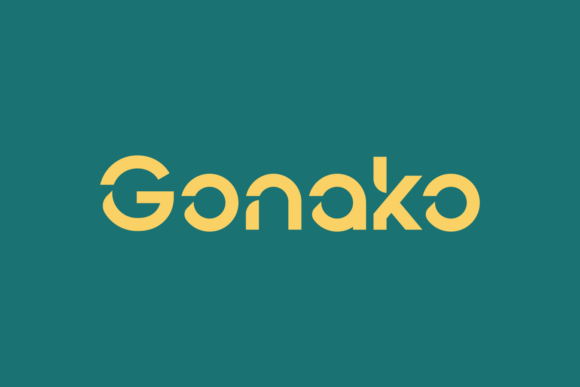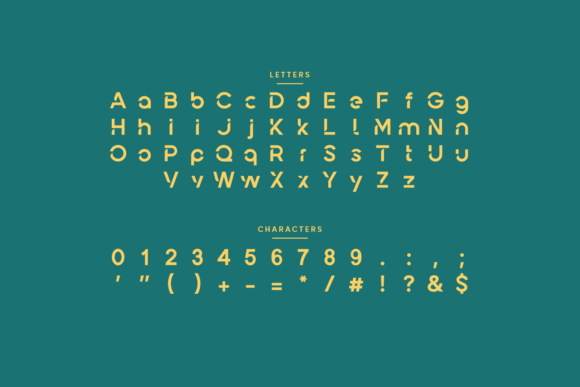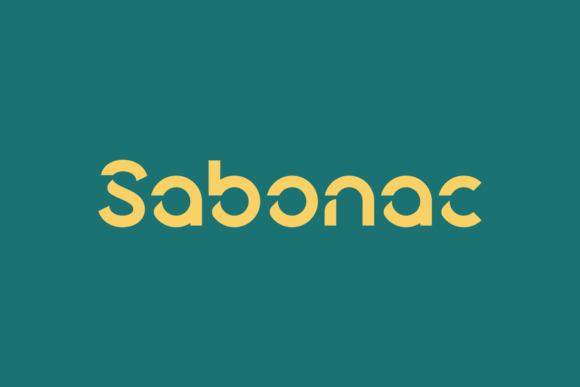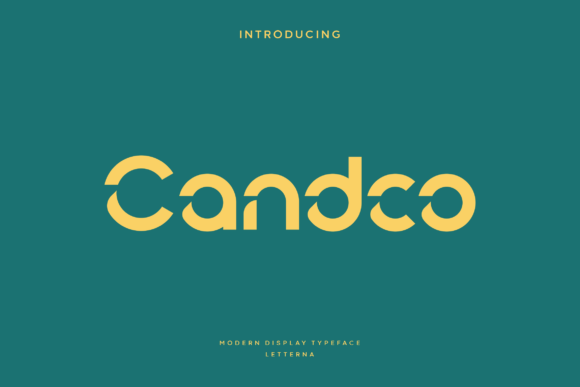
Candco Font: Elevate Your Designs with Modern Sans Elegance
In the world of typography, fonts play a pivotal role in conveying messages, evoking emotions, and creating lasting impressions. For designers and crafters seeking a modern sans font that embodies the essence of contemporary grotesque with geometric details and industrial design principles, Candco emerges as a stellar choice. This versatile font is meticulously crafted to bring an elegant touch to a myriad of creative projects, making it an indispensable asset in your design arsenal.
The Essence of Candco Font
Candco is not just another font; it’s a design statement. Inspired by the modern grotesque style, it integrates geometric details that are deeply rooted in industrial design principles. This fusion results in a font that is not only aesthetically pleasing but also structurally sound. The geometric influences provide a clean and crisp look, making Candco perfect for designs that demand clarity and sophistication.
One of the standout features of Candco is its versatility. Whether you’re working on a logo, advertisement, watermark for photography, stationery, branding project, display and magazine, invitation, corporate brand, product design, label, business project, or any other creative endeavor, Candco proves to be a perfectly suitable choice. Its modern sans-serif design ensures that your project stands out with a chic and elegant appeal, captivating your audience’s attention and setting your brand apart from the competition.
Applications of Candco Font
The applications of Candco are vast and varied. Here are a few areas where this font truly shines:
• Logos and Branding: Create a lasting impression with a logo that exudes modernity and sophistication.
• Advertisements: Elevate your ad designs with a font that captures attention and communicates your message effectively.
• Photography Watermarks: Add a professional touch to your photographs with an elegant and unobtrusive watermark.
• Stationery and Corporate Documents: Impress your clients and colleagues with stationery and documents that reflect a modern and chic aesthetic.
• Product Design and Labels: Make your products stand out on the shelves with labels and packaging that boast a clean and contemporary look.
Why Choose Candco Font?
Choosing Candco for your design projects comes with numerous benefits:
• Elegance: Candco brings an elegant touch to your designs, making them more appealing and engaging.
• Versatility: Its wide range of applications makes it a valuable addition to your font collection.
• Legibility: The geometric details and industrial design principles ensure that Candco is not only beautiful but also highly legible.
• Uniqueness: Stand out in a crowded market with a font that is distinctive and memorable.
In conclusion, Candco font is a modern sans font that brings a breath of fresh air to the world of design. Its inspiration from modern grotesque with geometric details and deep roots in industrial design principles make it a unique and powerful tool for designers and crafters. Whether you’re aiming to create a stunning logo, an eye-catching advertisement, or any other design project that demands elegance and sophistication, Candco is an excellent choice. Elevate your designs with Candco and experience the difference it can make in your creative endeavors.